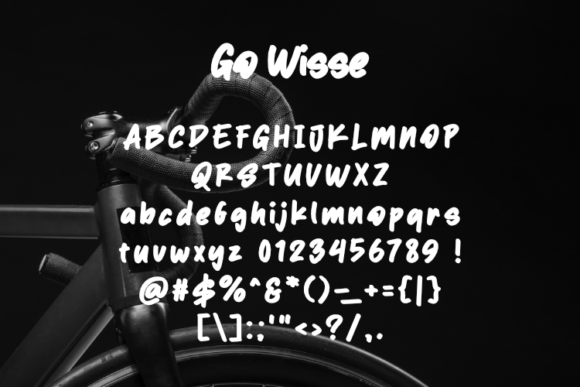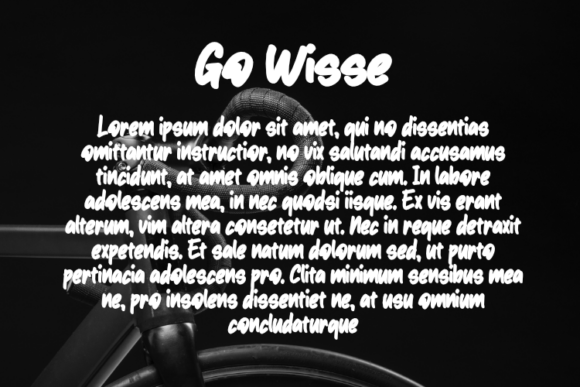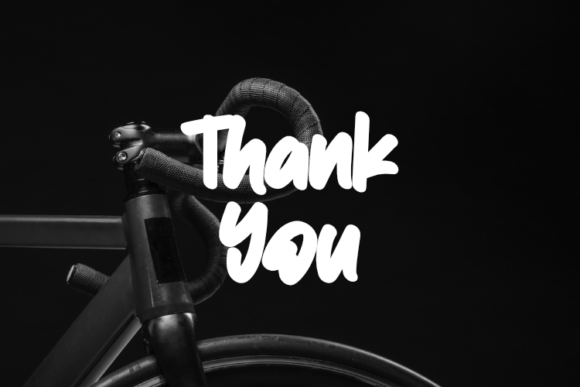
Introducing Go Wisse: The Ultimate Font for Stunning Designs
Are you a designer or crafter looking for a font that can elevate your clothing and t-shirt designs to the next level? Look no further than Go Wisse, the versatile font that’s tailor-made to fit all designs and compatible across all software platforms. With its sleek and sophisticated style, Go Wisse is the perfect addition to your font collection, allowing you to create stunning designs that stand out from the crowd.
As a designer or crafter, you know how important it is to have a font that’s both stylish and functional. Go Wisse is specifically designed to bring a touch of finesse to your designs, whether you’re creating clothing, t-shirts, or any other product. Its unique style and versatility make it an excellent choice for a wide range of design projects, from fashion and lifestyle to branding and advertising.
Key Features of Go Wisse Font
• Versatile Style: Go Wisse has a unique and stylish design that works well with a wide range of design projects. Its versatility makes it an excellent choice for designers and crafters who want to create stunning designs that stand out.
Benefits of Using Go Wisse Font
• Unique Touch: Go Wisse adds a unique touch to your designs, setting them apart from the competition. Its stylish and sophisticated style ensures that your designs look professional and visually appealing.
• Stand Out Appeal: With Go Wisse, you can create designs that have a stand-out appeal. Its versatility and stylish design make it an excellent choice for designers and crafters who want to create eye-catching designs.
Tips and Tricks for Using Go Wisse Font
Here are some tips and tricks for using Go Wisse font:
• Experiment with Different Sizes: Go Wisse looks great in a variety of sizes, from small and delicate to large and bold. Experiment with different sizes to find the one that works best for your design.
• Pair with Other Fonts: Go Wisse pairs well with other fonts, creating a unique and visually appealing design. Try pairing it with a sans-serif font for a stylish and modern look.
• Use on Different Products: Go Wisse is versatile and can be used on a wide range of products, from clothing and t-shirts to branding and advertising materials.
Font Name Go Wisse Font
Author Eric Kusuma
In conclusion, Go Wisse is the ultimate font for designers and crafters who want to create stunning designs that stand out from the crowd. Its unique style, versatility, and cross-platform compatibility make it an excellent choice for a wide range of design projects. With Go Wisse, you can add a touch of finesse to your designs and create eye-catching products that leave a lasting impression.